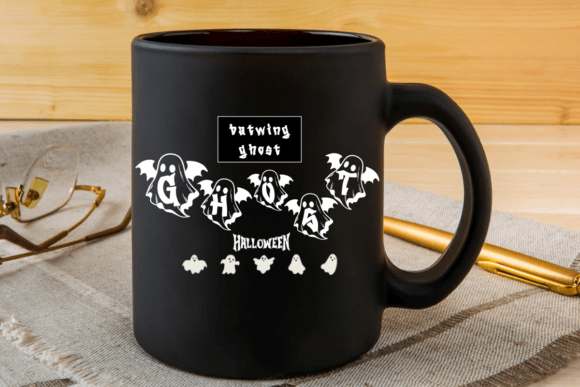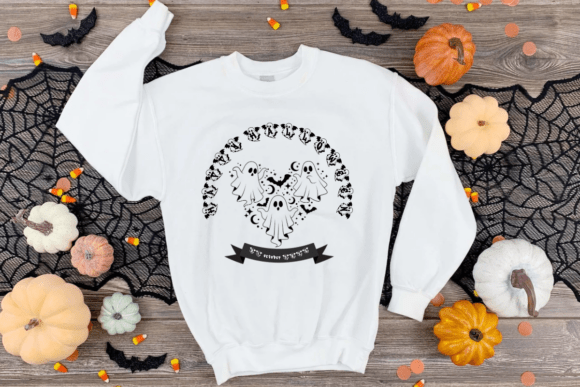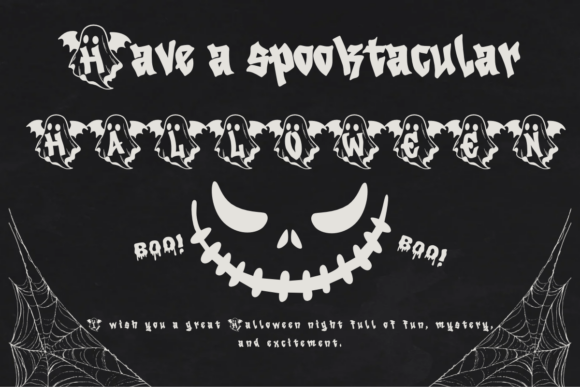
Unleashing the Artistic Charm of Batwing Ghost Font
Remember the moment when you stumbled upon the perfect font to match your creative vision? For many designers, that moment is like finding a treasure – it sets their imagination ablaze and inspires them to create something truly special. For those who have discovered the beauty of the Batwing Ghost Font, they know exactly what we’re talking about.
Batwing Ghost Font is a decorative font that effortlessly breathes life into any design project. Whether it’s a heartfelt note, a personalized greeting card, or a bold banner, this font adds a touch of artistic charm that makes it truly unique. Its versatility is what makes it so valuable for designers – it can elevate any content, from social media posts to stationery, and even transform everyday items like mugs and t-shirts into works of art.
Batwing Ghost Font Key Features
- Font Family: Batwing Ghost
- Unique Characteristic: The Batwing Ghost font features a unique blend of gothic and horror elements, making it ideal for spooky and dark-themed designs
Batwing Ghost Font Review
At first glance, the Batwing Ghost Font seems to have a certain mystique to it. ✨ The font’s distressed, gothic-inspired design has the potential to add a unique touch to various projects. The subtle hint of the bat-like wings in the design gives it a distinct flair that could appeal to fans of the mysterious and dark.
Here are some of the things that work well for the Batwing Ghost Font: ✨
- Unique and distinct design
- Perfect for projects that require a mysterious or dark aesthetic
- Works well for headings and titles
However, there are also some limitations to consider: ⚠️
- The font may be difficult to read for long blocks of text due to its distressed design
- May not be suitable for projects that require a clean and modern look
- Limited character set may require additional font imports
Overall, the Batwing Ghost Font is a great choice for projects that require a mysterious or dark aesthetic. While it may have some limitations, its unique design and versatility make it a great option for designers looking to add some edge to their work.
Use the Batwing Ghost Font for titles, headings, and emphasis to add a touch of elegance and sophistication to your designs.
Combine the Batwing Ghost Font with other fonts to create a unique and striking visual effect.
Use the Batwing Ghost Font for:
1. Horror movie posters and marketing materials.
2. Gothic-inspired designs and decorations.
3. Titles and headings for fashion and beauty brands.
Alternatives to Batwing Ghost Font
Pacifico is a beautiful, elegant script font perfect for creating a sophisticated and luxurious look. It’s ideal for use in wedding invitations, luxury branding, and other high-end design projects. Compared to Batwing Ghost Font, Pacifico has a more refined and polished feel, making it a great choice for designs that require a touch of sophistication.
Great Vibes is a stylish and modern script font that’s perfect for creating a fun and energetic atmosphere. It’s ideal for use in advertising, social media, and other designs where a playful vibe is needed. Compared to Batwing Ghost Font, Great Vibes has a more dynamic and expressive feel, making it a great choice for designs that require a lot of personality.
Alex Brush is a elegant and refined script font that’s perfect for creating a sophisticated and luxurious look. It’s ideal for use in branding, packaging, and other design projects where a touch of elegance is needed. Compared to Batwing Ghost Font, Alex Brush has a more subtle and understated feel, making it a great choice for designs that require a sense of refinement.